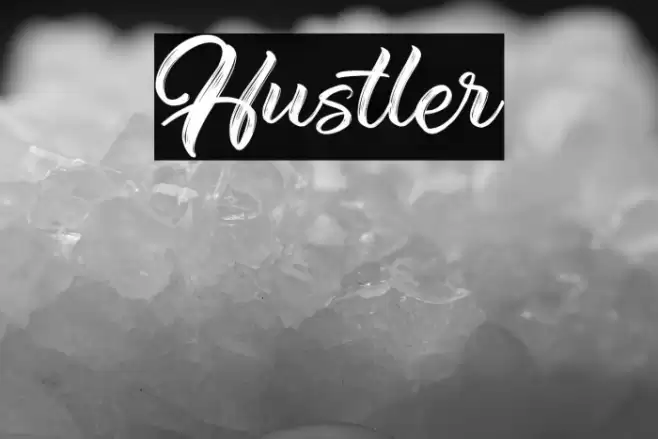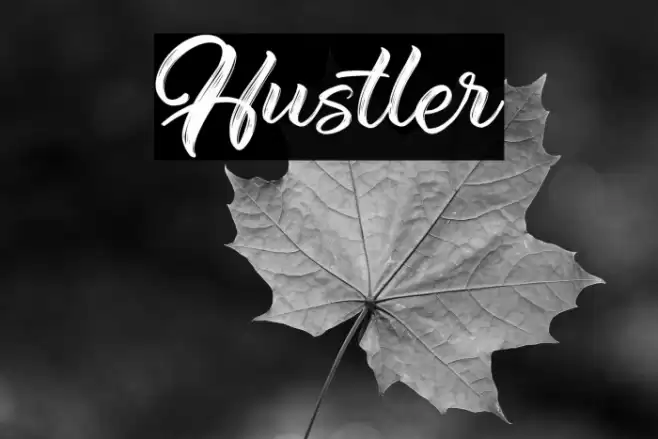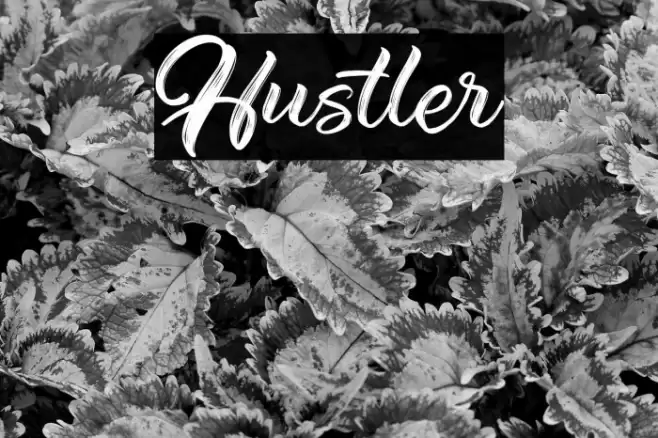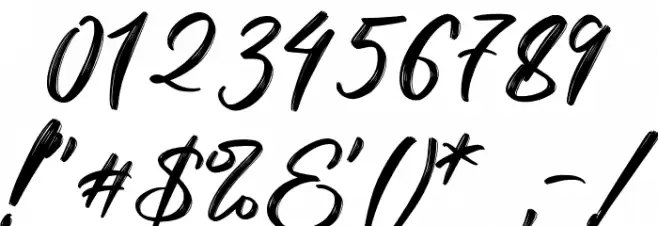
Hustler Font
Hustler Description
This font features a dynamic and expressive script style, characterized by its fluid, cursive strokes that convey a sense of elegance and movement. The letters are interconnected, creating a seamless flow that enhances readability while maintaining a decorative flair. The uppercase letters are bold and prominent, with sweeping curves and flourishes that add a touch of sophistication. The lowercase letters complement the uppercase with their smooth, rounded forms, maintaining consistency in style. The numerals and special characters are crafted with the same attention to detail, ensuring a cohesive look across all elements. This font's brush-like appearance gives it a handcrafted feel, making it suitable for projects that require a personal touch.
A dynamic, expressive script font with fluid, cursive strokes and a handcrafted feel from Regular fonts.
- Proposed Projects: Ideal for wedding invitations, branding, greeting cards, and any project requiring an elegant, personal touch.
- Use Case: Logos, Invitations, Branding